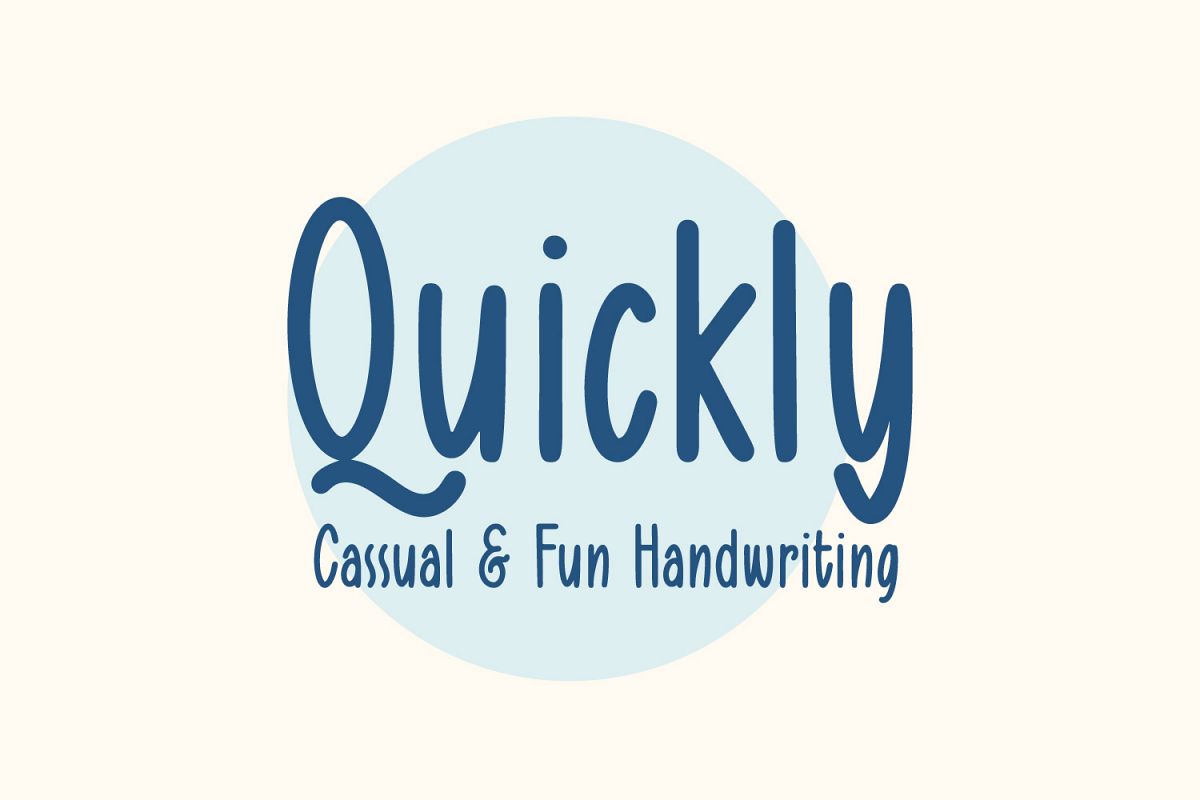
Quickly Freehand
Quickly Freehand Italic
‘Quickly Freehand’ is a san serif font in casual and fun handwriting, intended for you when you start to get bored with the formal atmosphere. Comes in regular and italic versions as well as 27 language support to expand the scope of use of fonts.
Very appropriate for use in an informal setting, for headline texts, funny quotes, print on tshirts, paperbags, children's books, equipment and children's educational games and craft crafts.